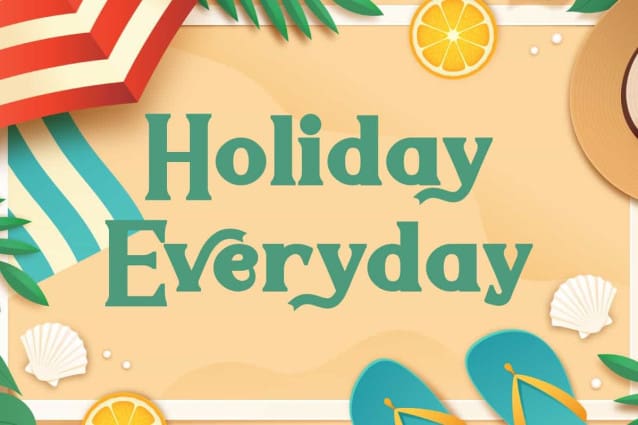
Holiday Everyday Font
Holiday Everyday Font is a playful fun serif display font. This font has bold and clean characters that make it easy to read on design. It would be good for brand logo, headline, invitation, magazine cover, poster, product packaging, screen print, signage, social media posts, stationery, sticker, website, and more!
Holiday Everyday Font includes full set for Uppercase and Lowercase Basic Characters, Numbers, Punctuation and Symbols, also Alternate characters. This stylish font carefully crafted to create the perfect font so that it will be suitable for accommodation, advertisement, beauty product, cafeteria, crafts, fashion, photography, restaurant, spa, travel agency, etc.